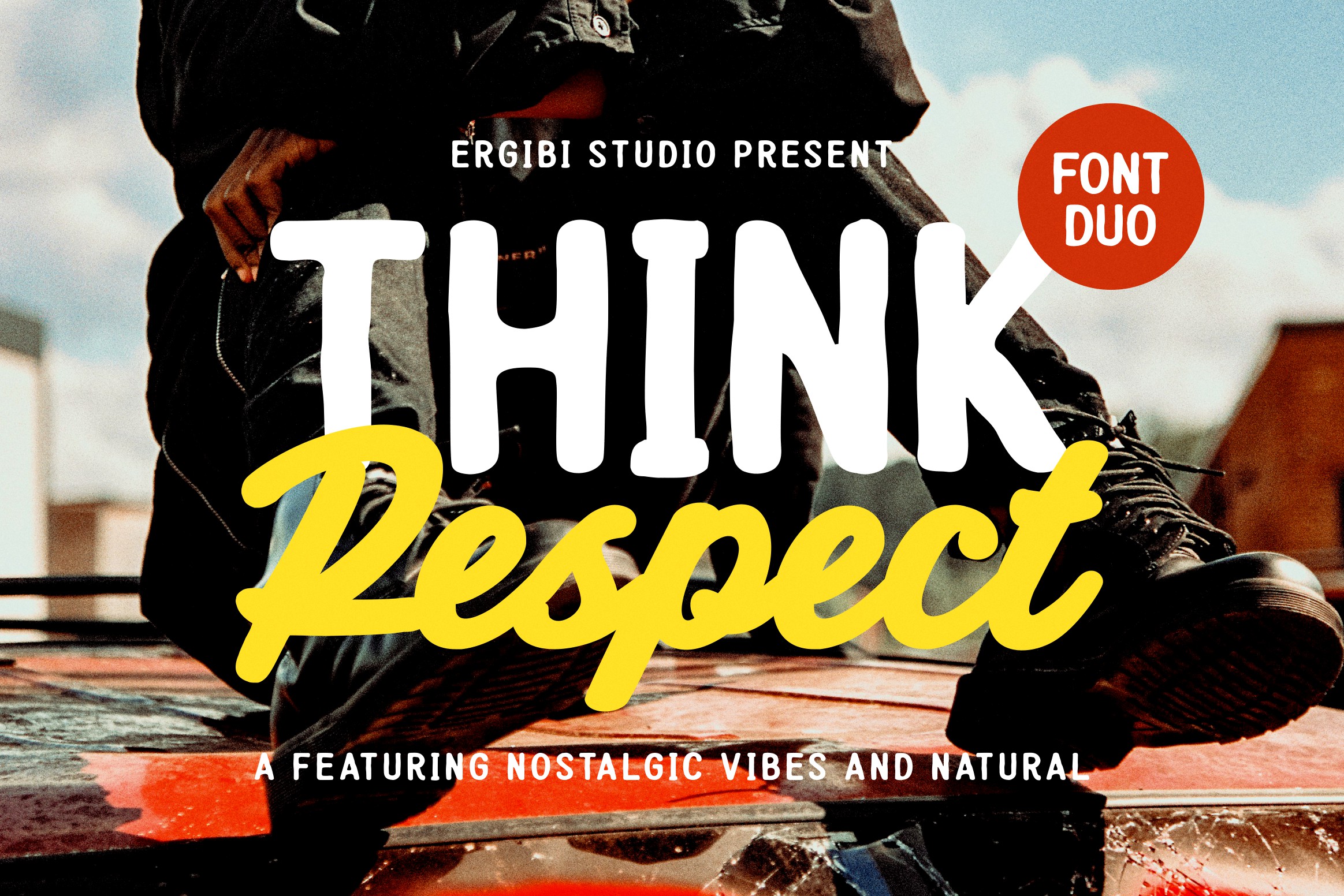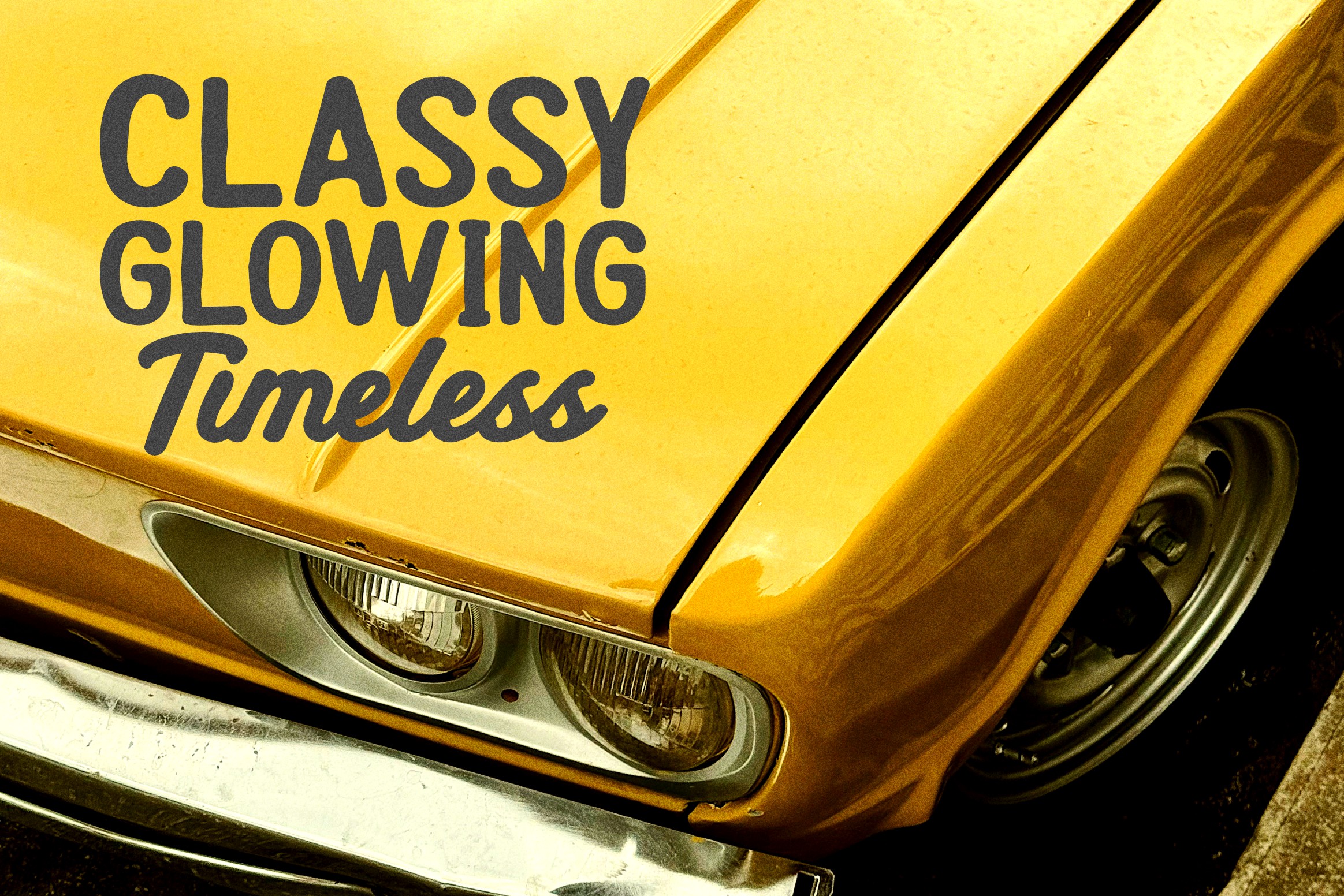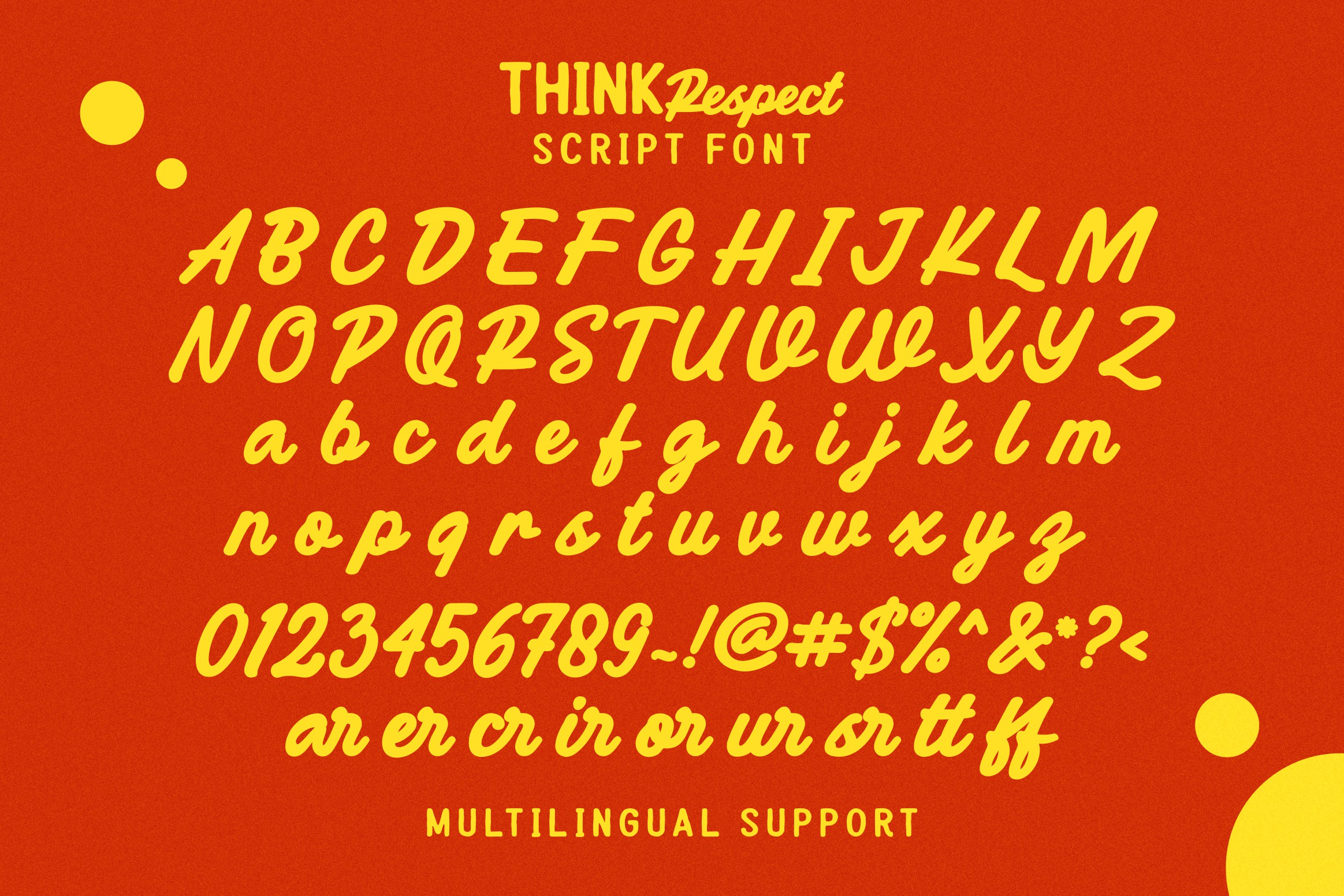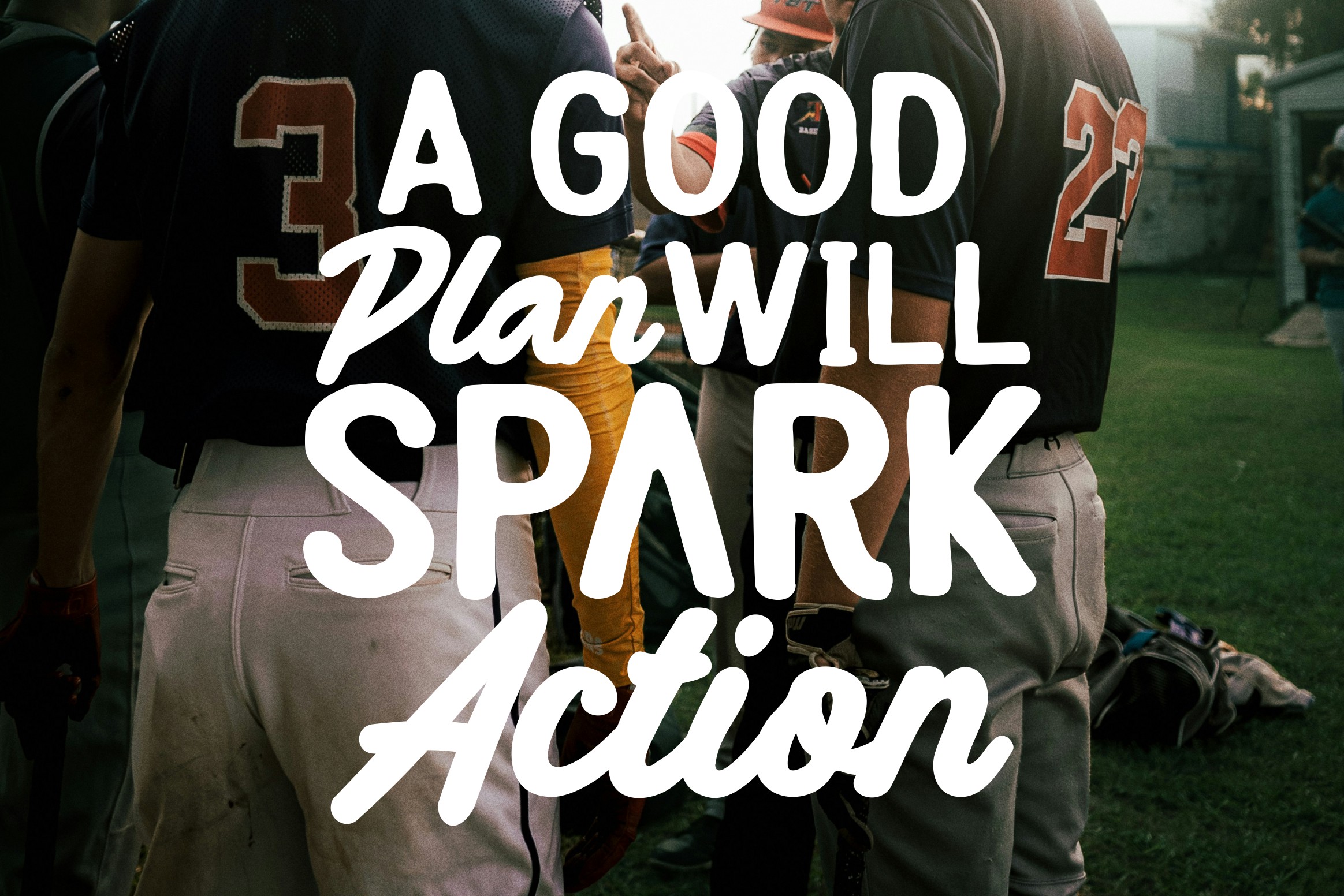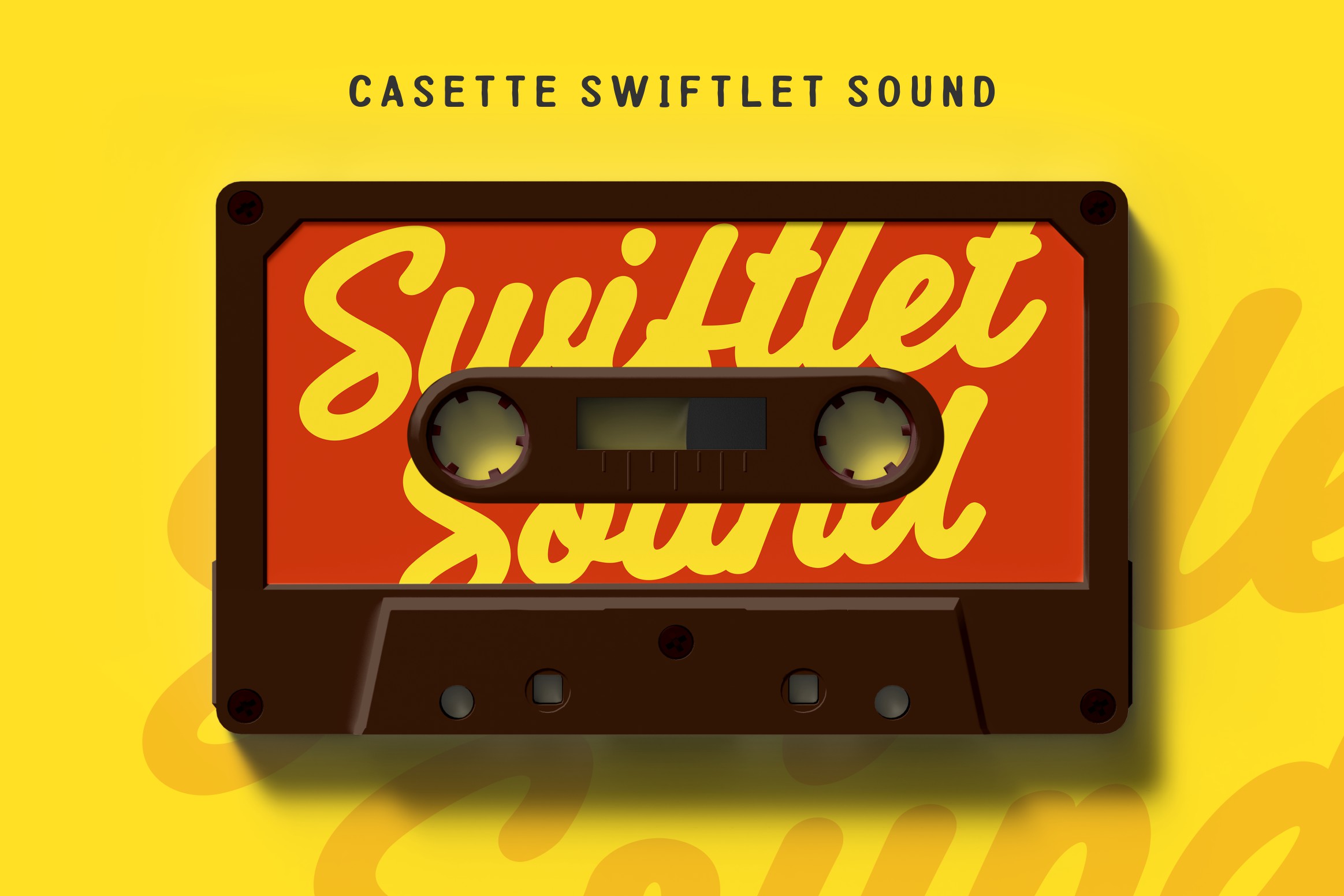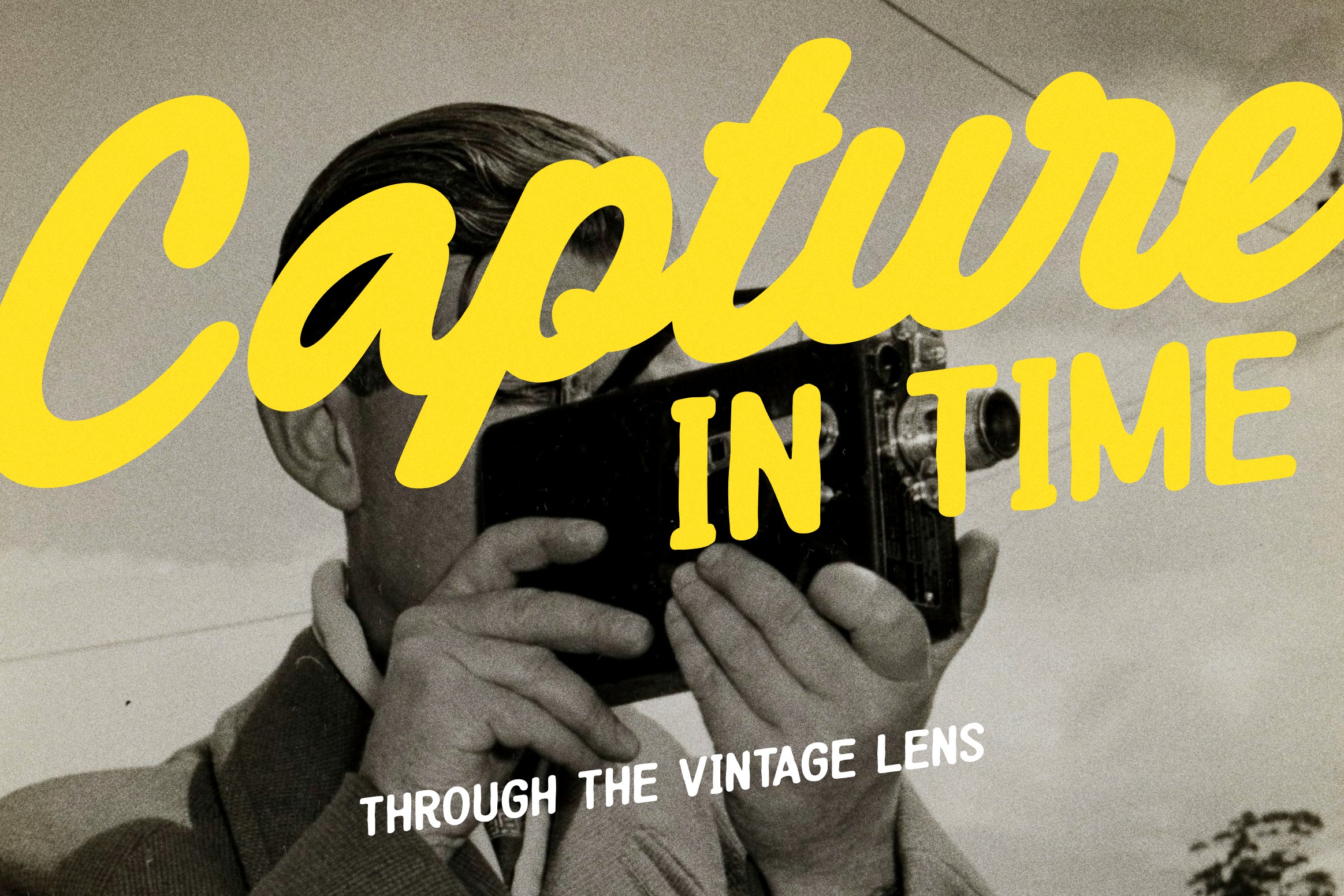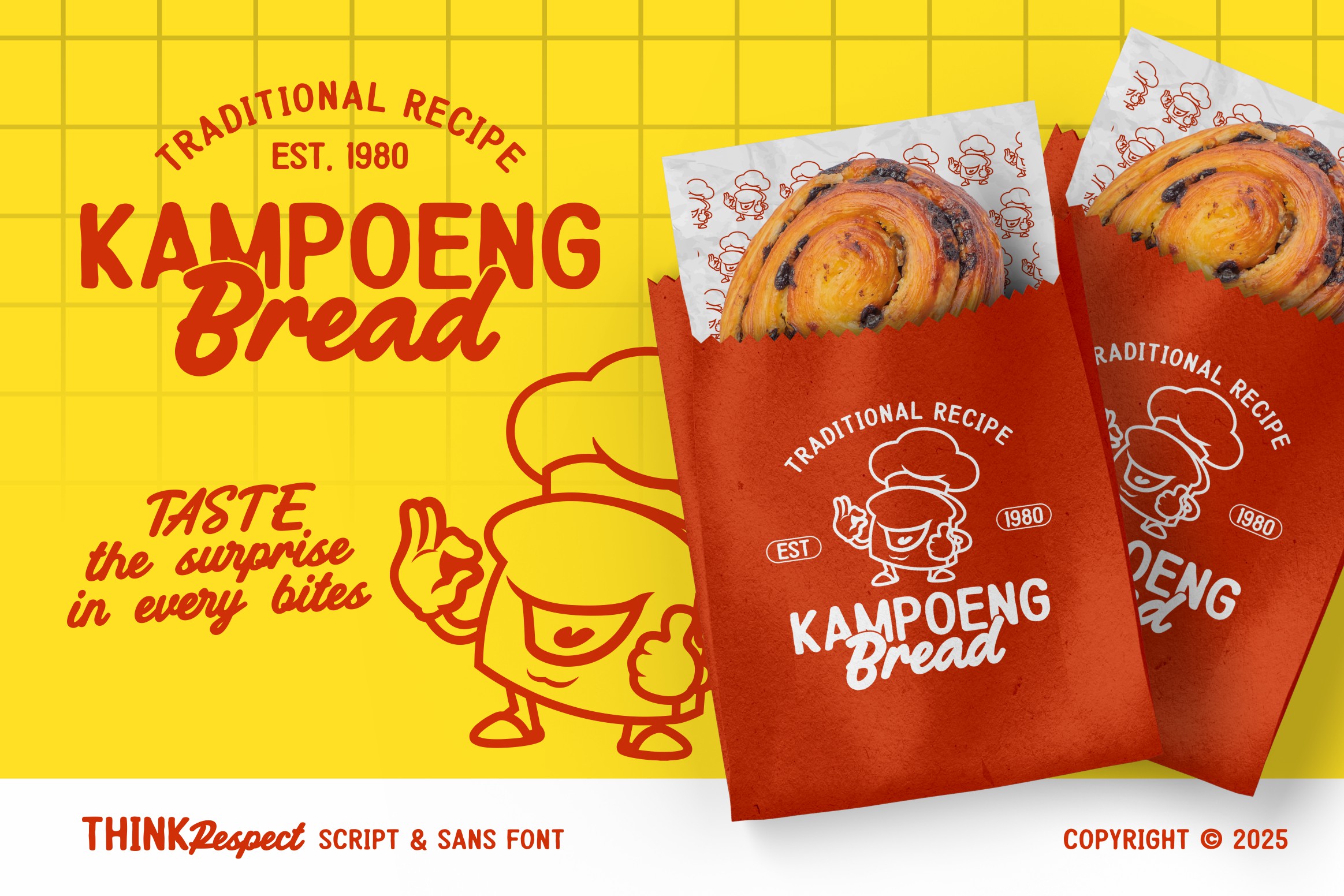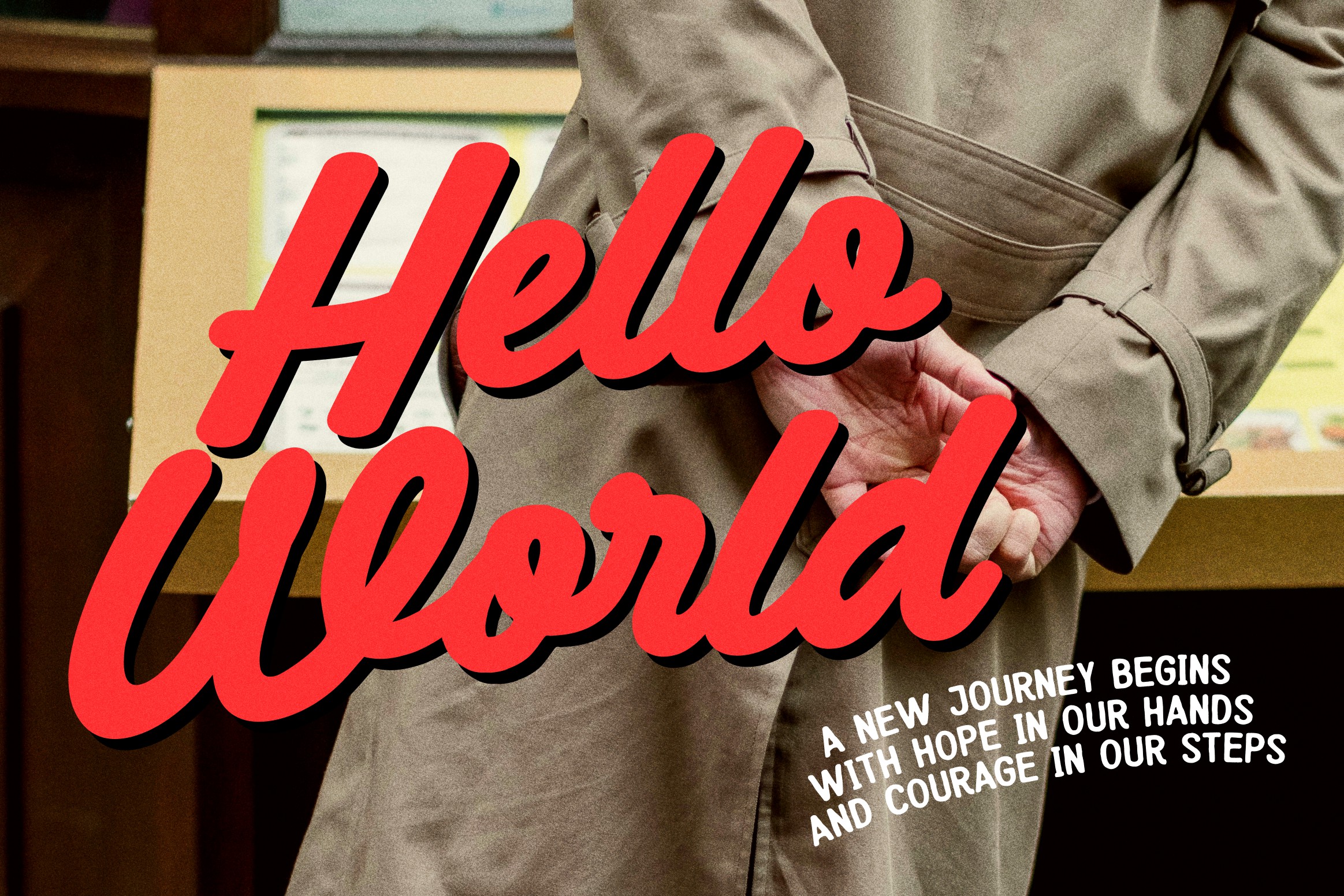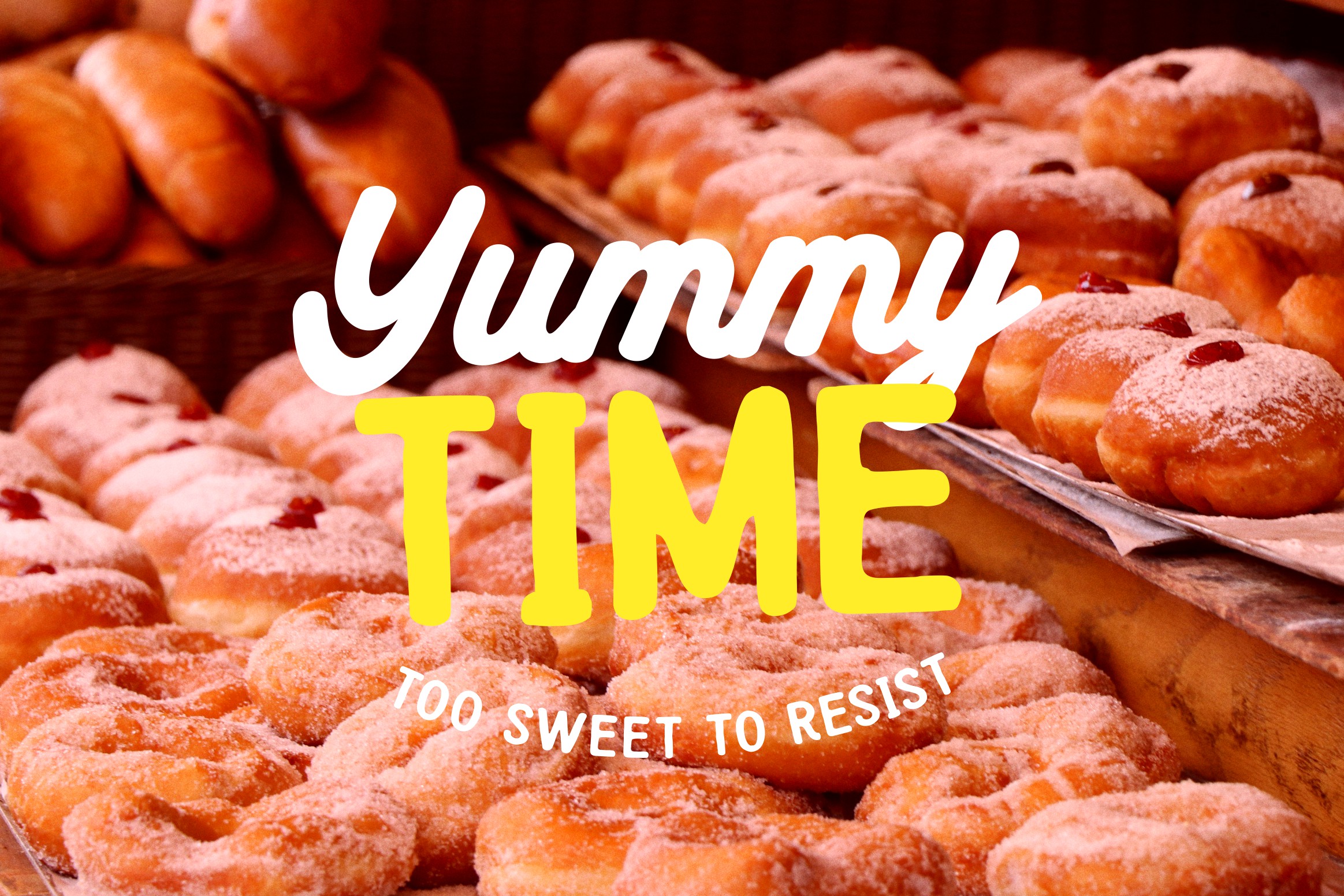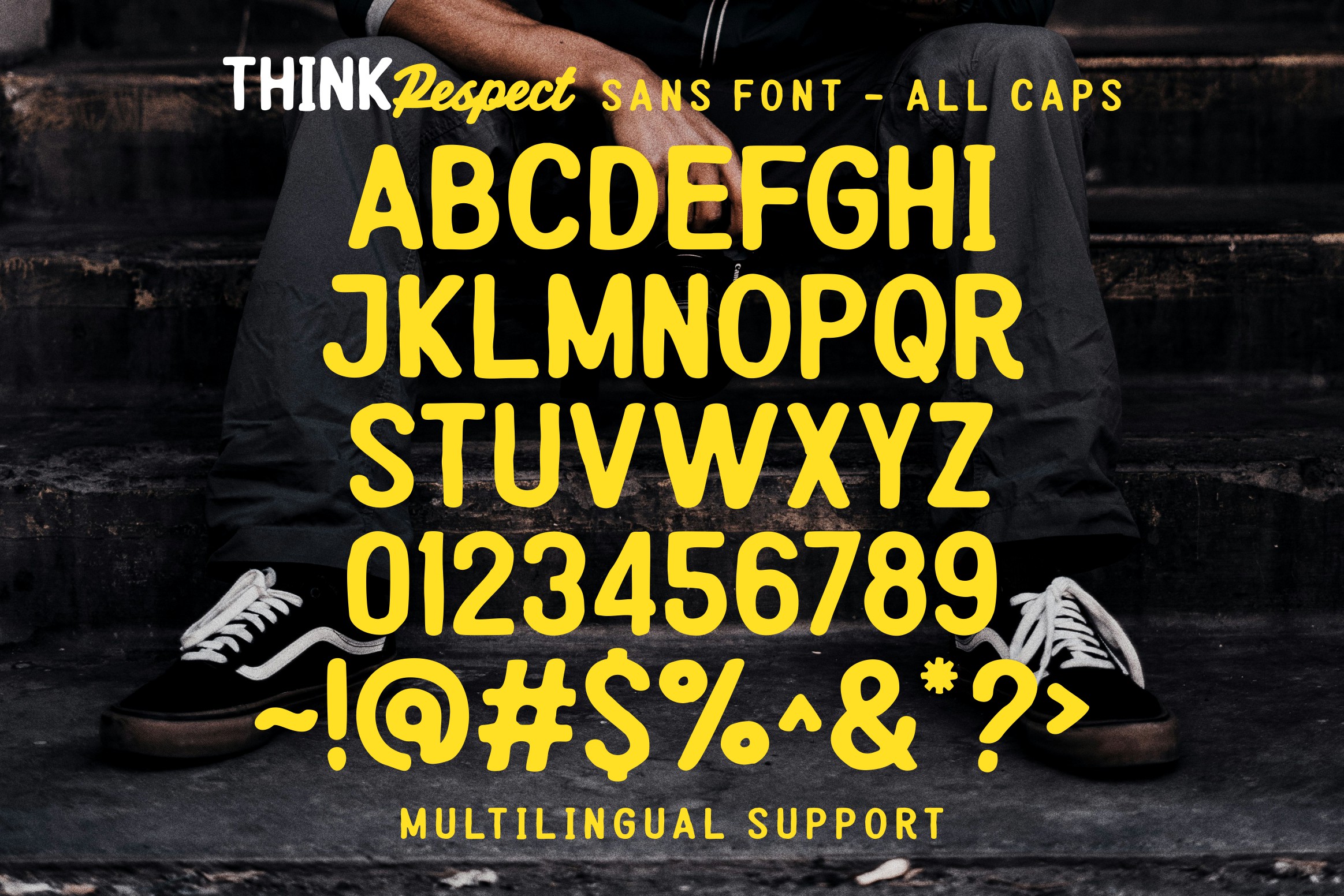
Think Respect is a featuring nostalgic vibes and natural. It combines a clean, organic sans serif with a playful script to give your designs that extra spark. Perfect for everything from t-shirts and posters to social media posts and brand logos, this font brings a cool, retro-modern feel that’s full of personality. Whether you’re going for something sporty or just want your message to stand out, Think Respect is ready to make it happen.
- Standard glyphs
- Ligatures
- International Accent